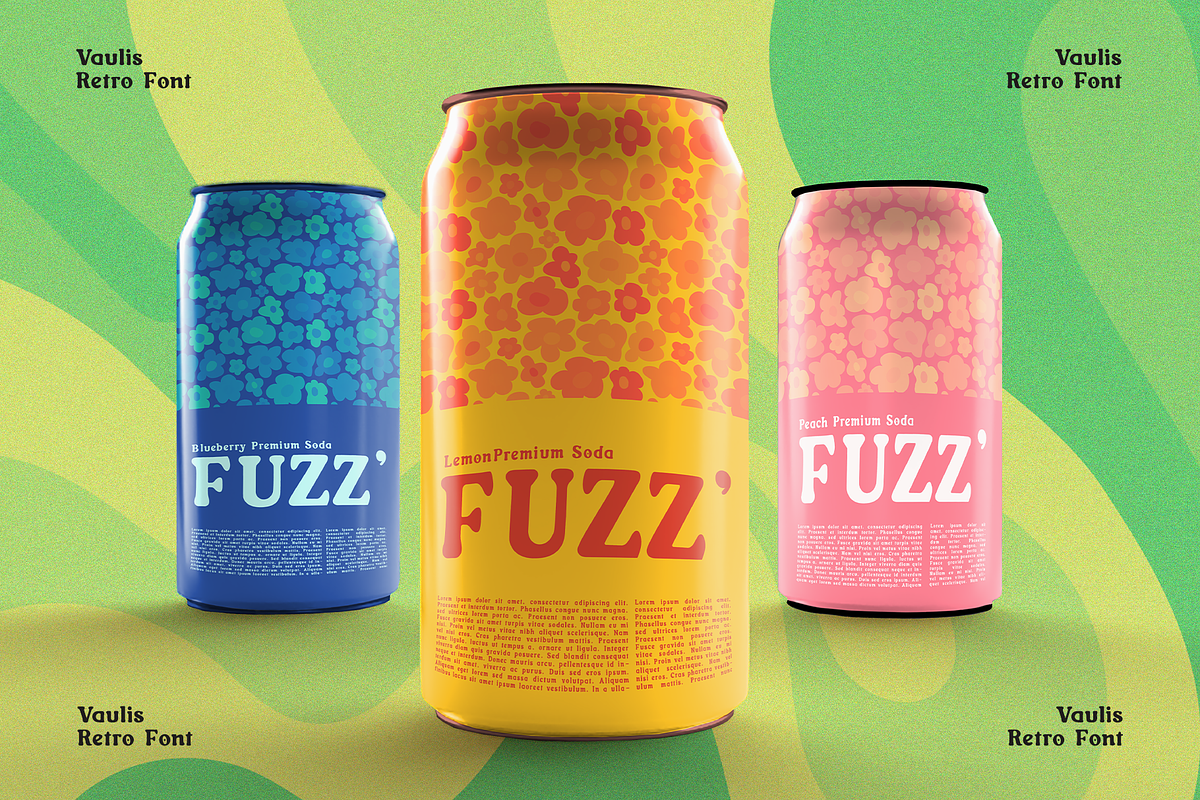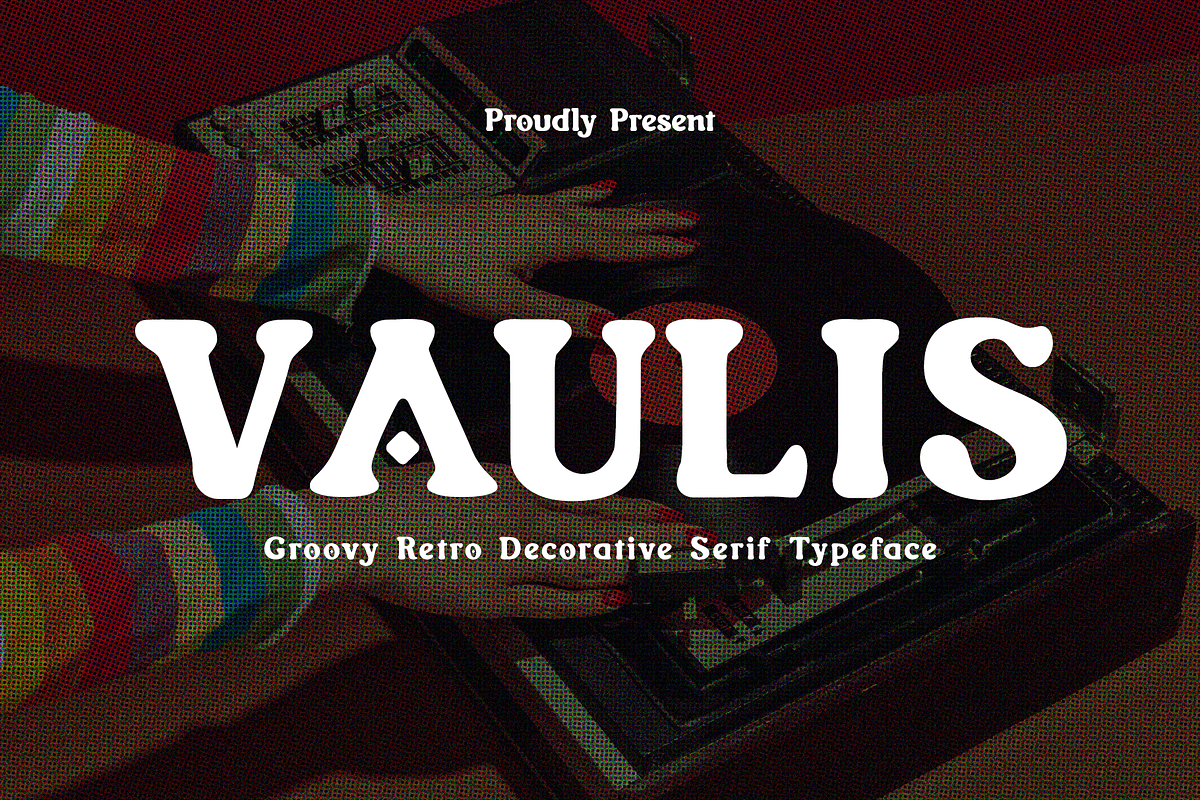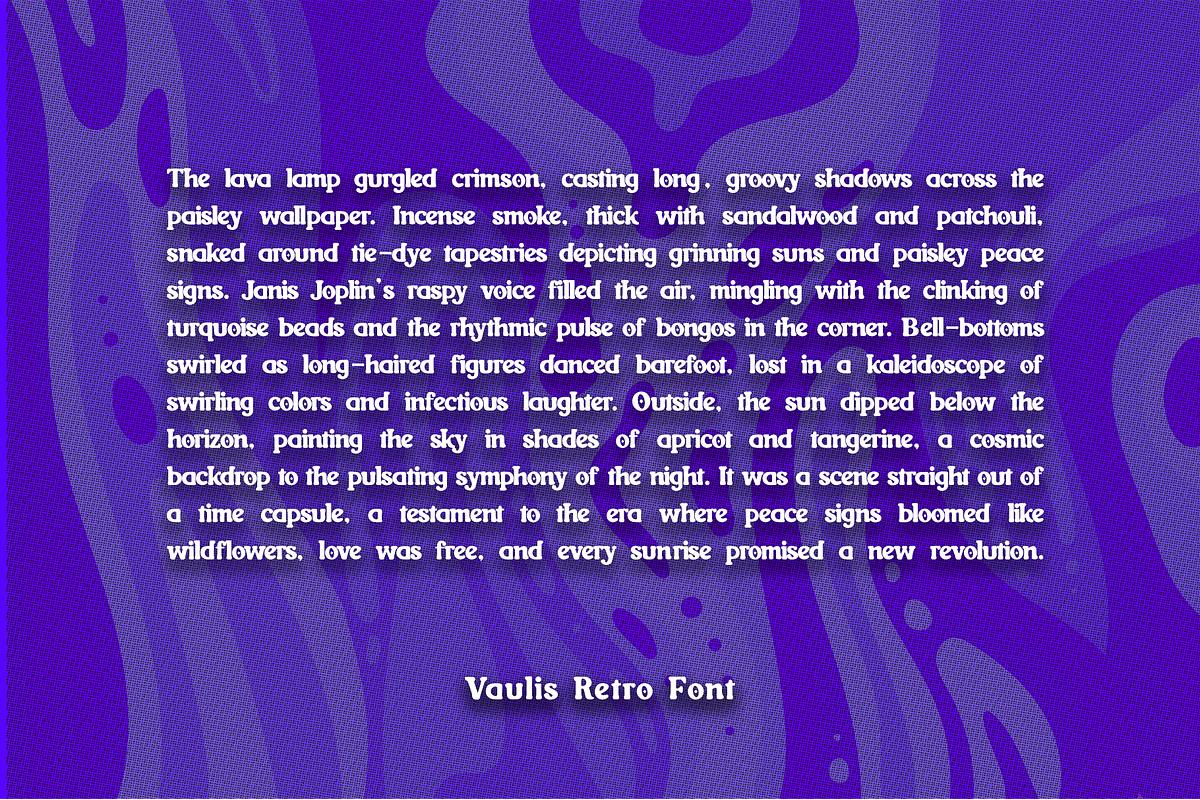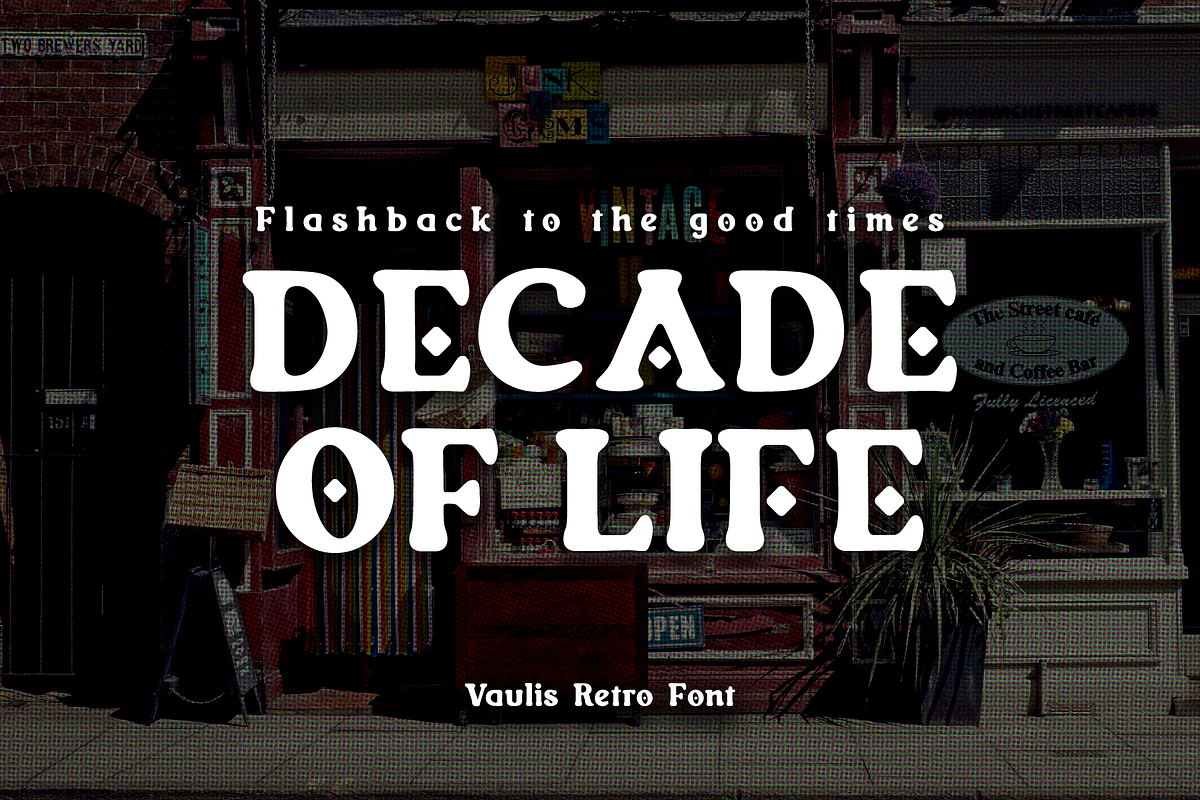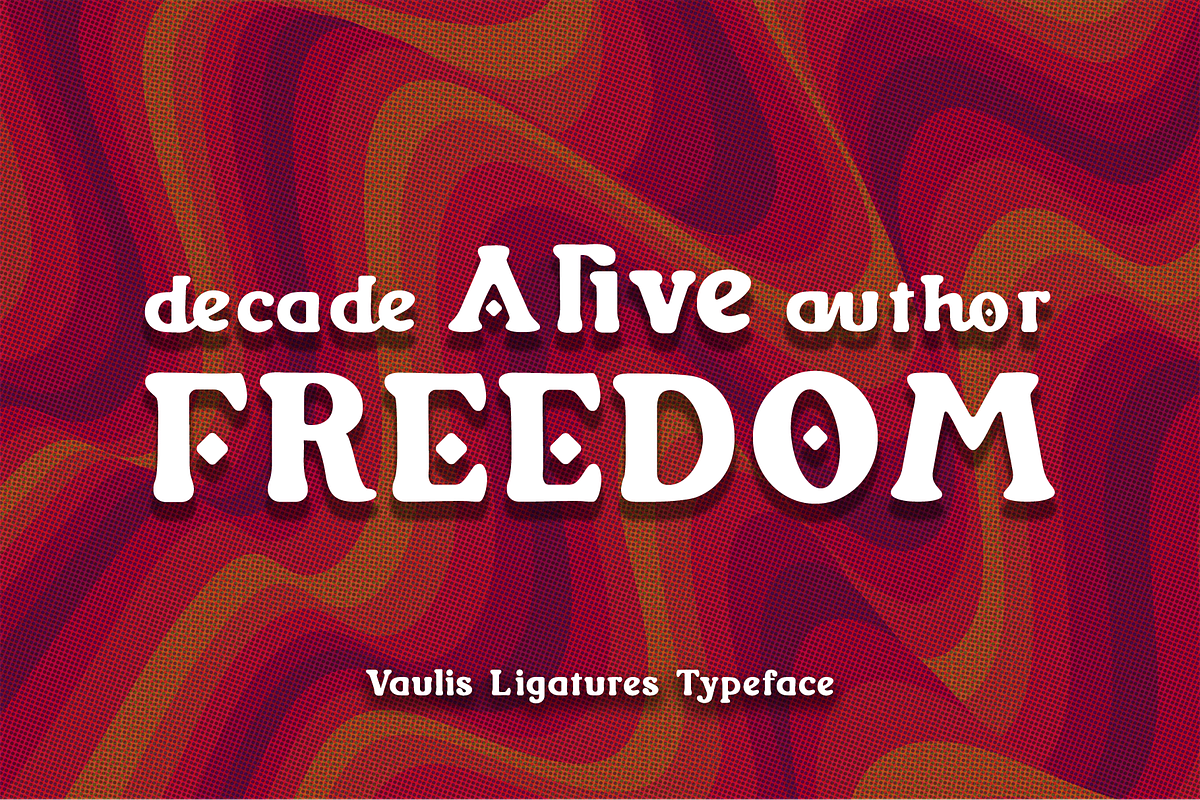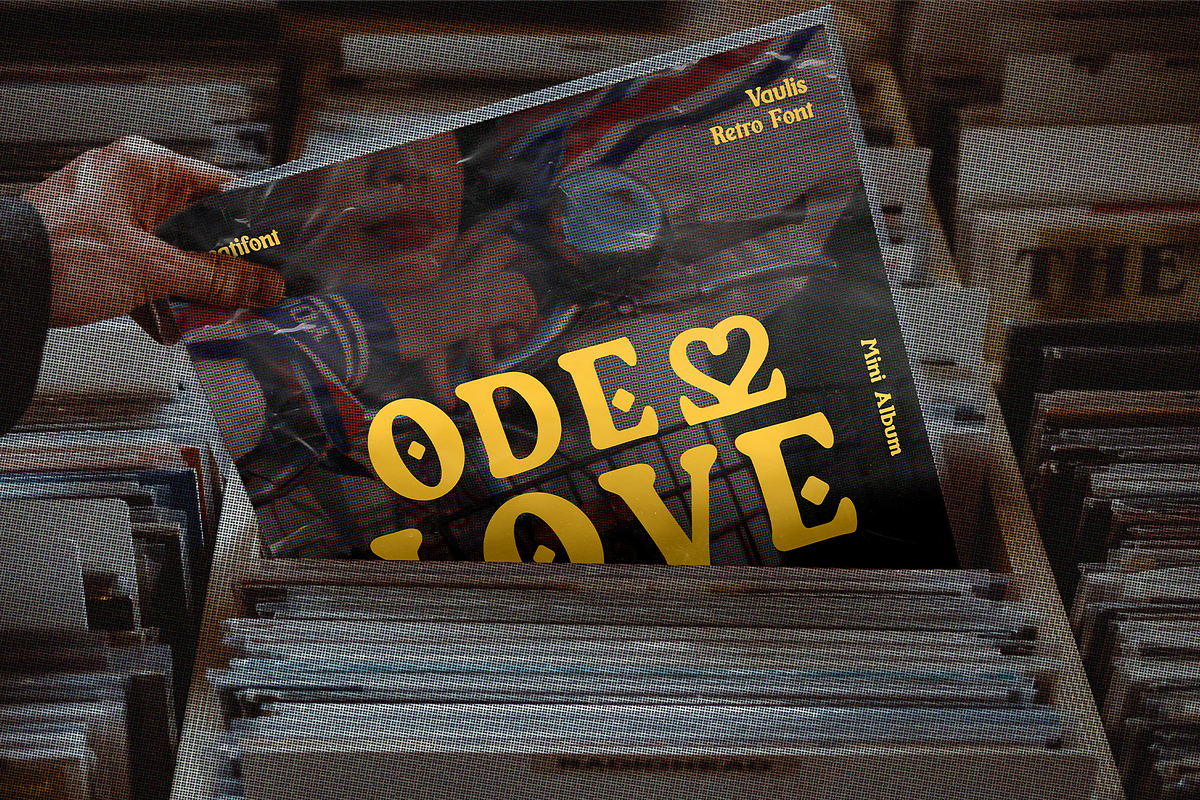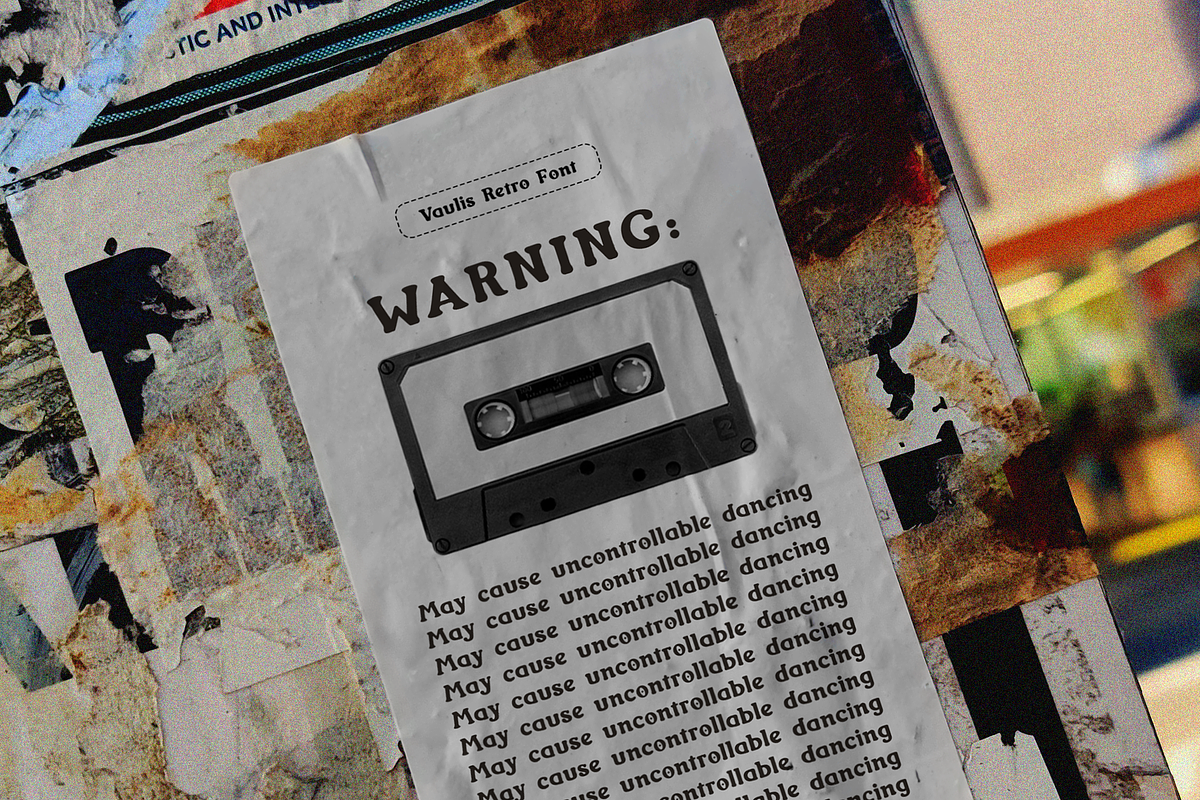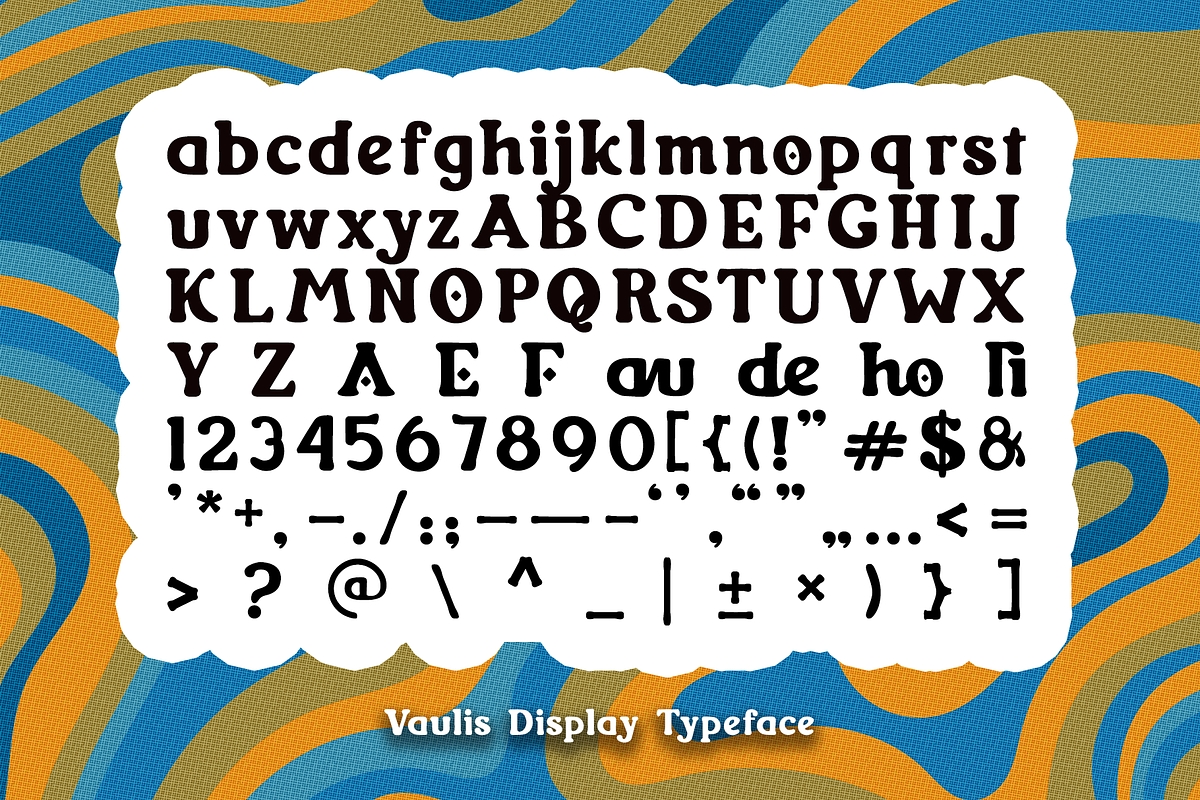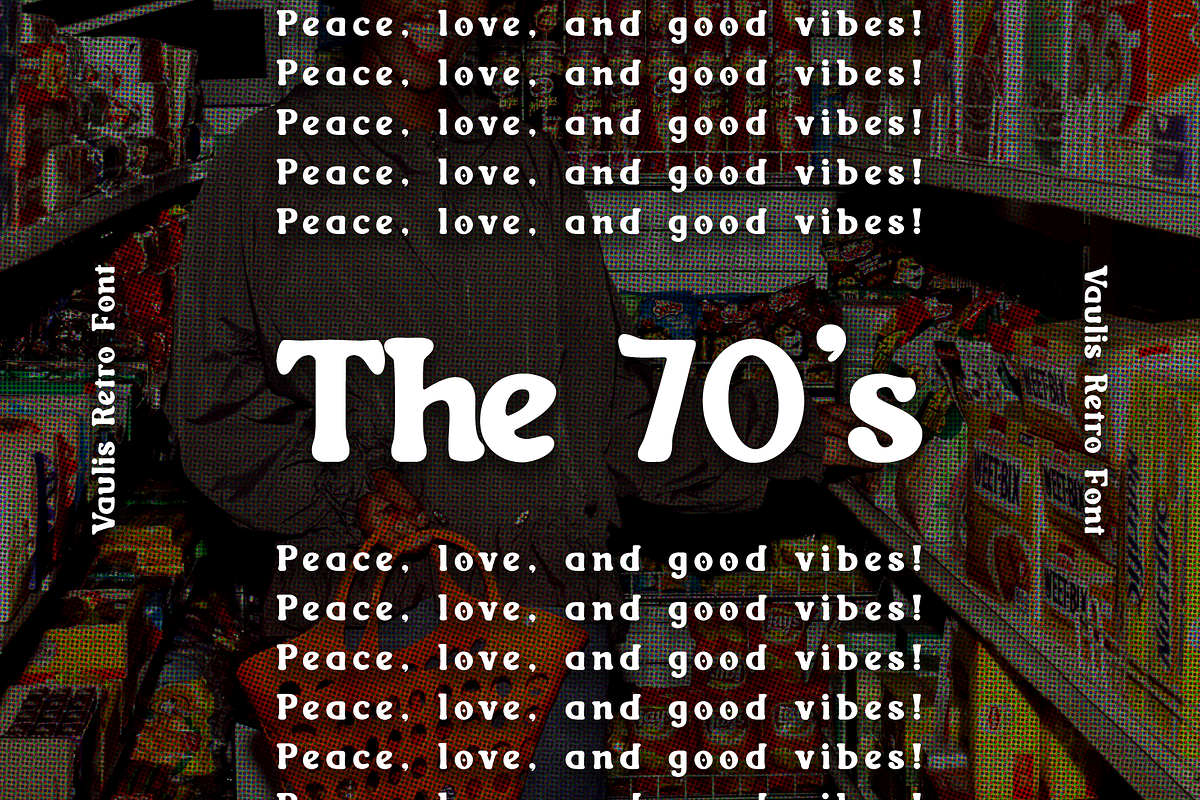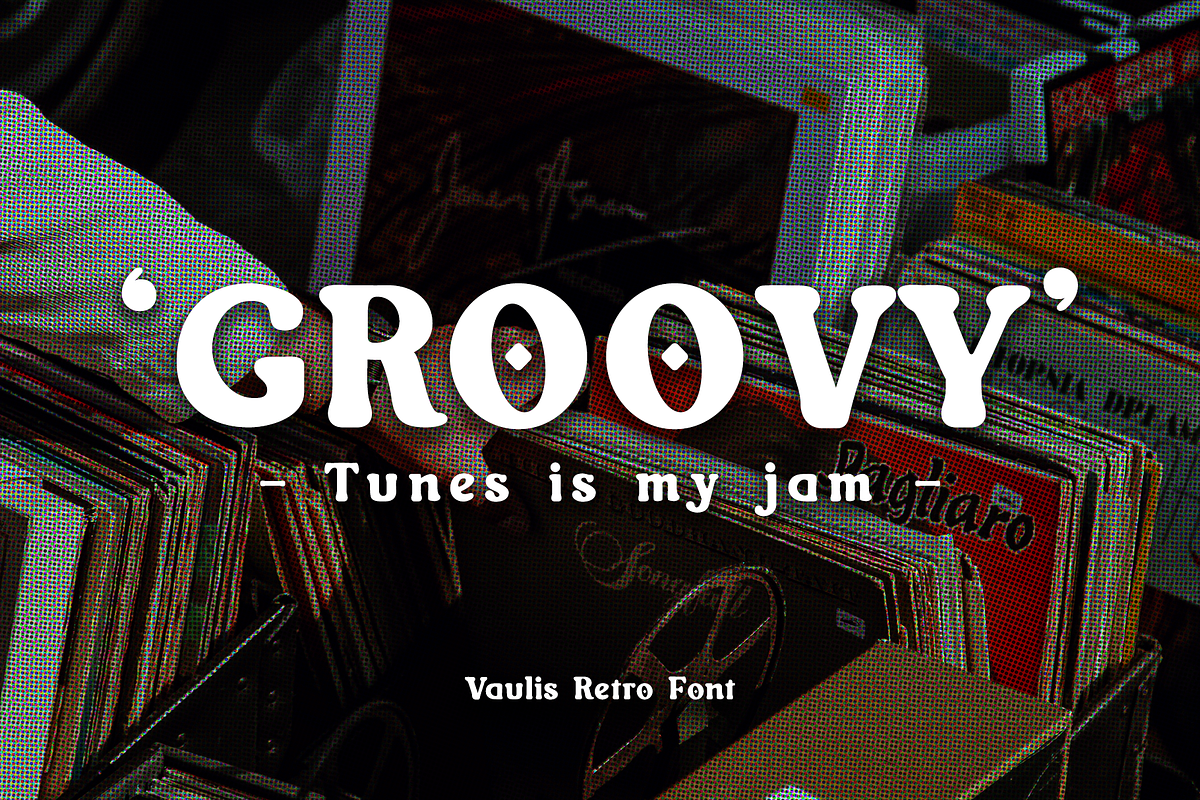
CF Vaulis - Retro Serif
Vaulis - is groovy serif font with a charm of retro and contemporary style. The serifs, the small strokes that finish off the main strokes of letters, are triangular and slightly flared, adding a touch of retro elegance without feeling overly formal. Vaulis also includes many alternate characters, allowing you to customize the look and feel of your text and create unique typographic moments. Its retro-inspired shapes, playful ligatures, and contemporary sensibility make it a versatile and captivating choice for any design that wants to add a touch of personality and style.
- Various Alternates Characters & Ligatures Glyphs